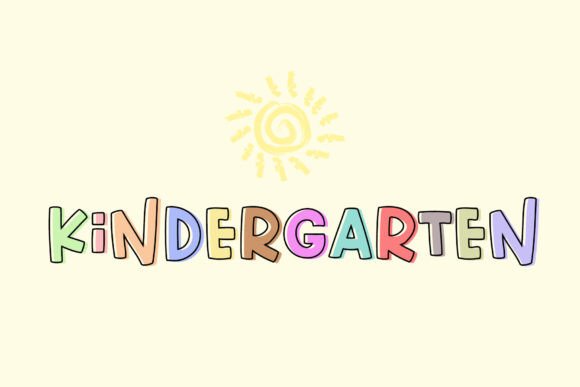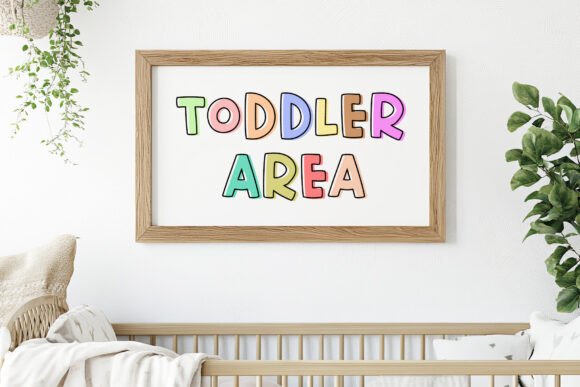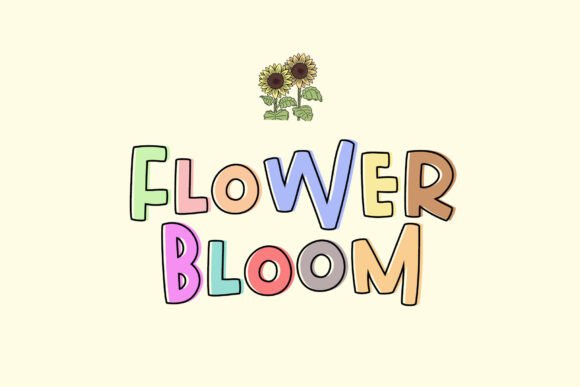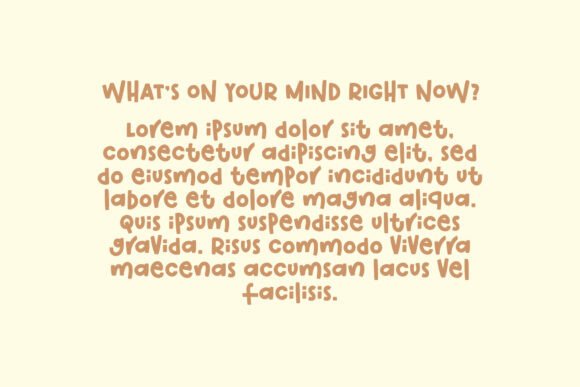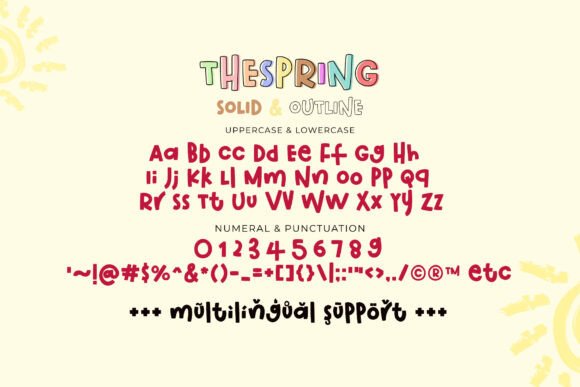
The Spring Font
The Spring is a festive and fun display font. This font is stunning and adds cuteness to the design. It has a solid and an outline version.
The Spring is a pretty cute font for a wide range of designs with cute-themed items, such as t-shirts, crafting, stickers, mugs, birthday cards, planners, quotes, tumblers, sublimation, and many more.